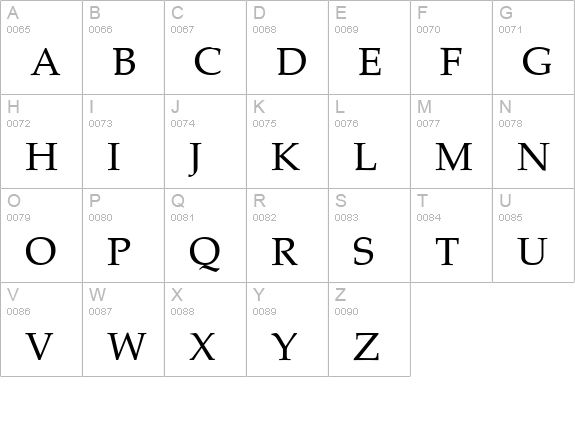
Palatia Font Details
Palatia font is a beautiful and elegant typeface that exudes sophistication and charm. With its clean lines and exquisite details, this font is perfect for adding a touch of class to any design project. What makes Palatia font even more appealing is that it is available for free. Yes, you read that right! This stunning font can be downloaded without any cost at FontsMarket.com, making it accessible to everyone who appreciates fine typography. The letters in Palatia font are meticulously crafted, showcasing a seamless blend of classical and contemporary elements. Its versatility allows it to be used in a variety of contexts, from branding and logos to invitations and headlines. Whether you're designing a wedding invitation or a professional business card, Palatia font will surely impress. The clarity and legibility of Palatia font make it a reliable choice for any project, ensuring that your message is conveyed effectively. Its balanced proportions and carefully designed letterforms make it easy to read, even in small sizes or dense blocks of text. With Palatia font, you can elevate your designs and effortlessly create a refined and polished look. Its timeless appeal and timeless appeal will stand the test of time, making it a valuable addition to your font collection. So why wait? Don't miss the opportunity to enhance your design projects with the beauty of Palatia font. Head over to FontsMarket.com and download it for free today. Experience the elegance and versatility of this remarkable typeface and let your creativity soar.